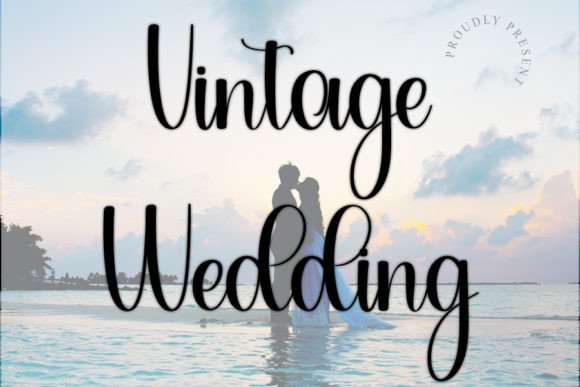
Unleash the charm of your wedding invitations, cards, and website with Vintage Wedding Font, a captivating script font family that exudes elegance and timeless beauty. Crafted with utmost care by PiPi Creative, this font offers an exquisite touch to your special day, leaving a lasting impression on your guests.
With its delicate strokes and enchanting curves, Vintage Wedding Font captures the essence of romance and sophistication. Its distinctive style adds a touch of nostalgia to your designs, transporting your loved ones to a bygone era of handwritten letters and heartfelt expressions.
Express your heartfelt emotions through the flowing lines of Vintage Wedding Font. Each letter dances across the page, carrying your messages with grace and poise. Whether you're creating wedding invitations, menus, programs, or heartfelt cards, this font will elevate your designs to new heights of elegance.
Step into a world of creative possibilities with Vintage Wedding Font. Its versatility extends beyond wedding-related projects. Unleash your imagination and explore its potential for logos, branding, posters, social media graphics, and any project that calls for a touch of timeless charm.